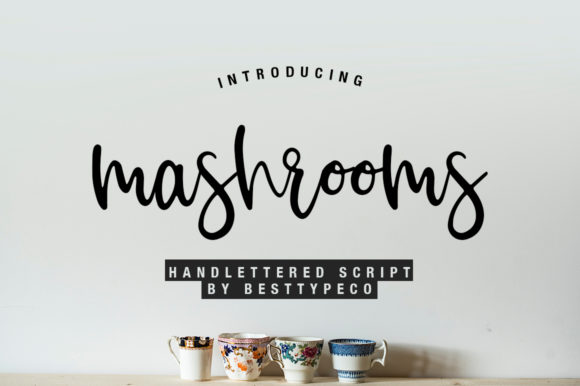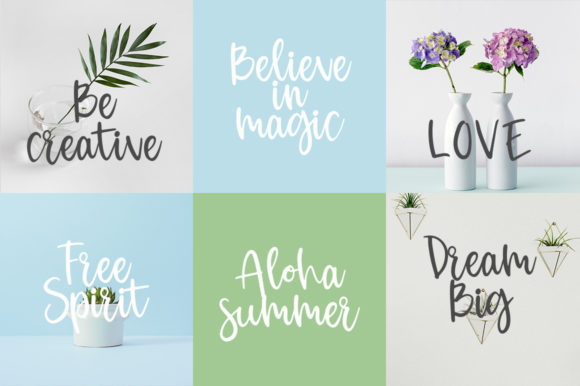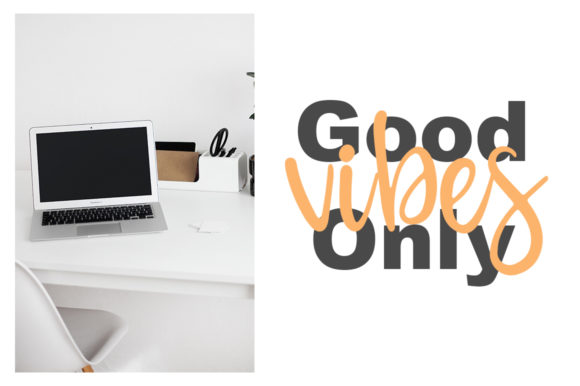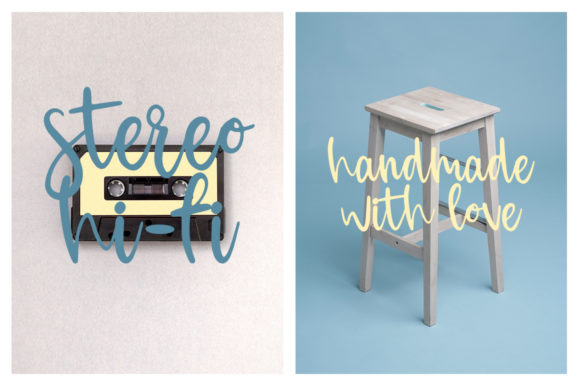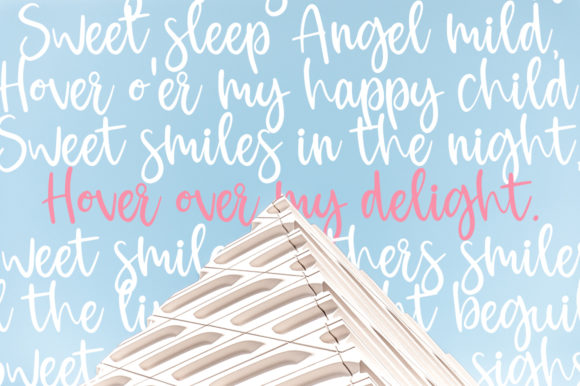
HomeScript FontsMashrooms Font Script Fonts Mashrooms Font FacebookXPinterestWhatsApp Mashrooms Font Poster 2 Mashrooms Font Poster 3 Mashrooms Font Poster 4 Mashrooms Font Poster 5 About Mashrooms Font Mashrooms is a lovely script typeface with charming style. It will add a romantic touch to any crafting project! DOWNLOAD ON CREATIVE FABRICAThis font is sold and delivered by Creative Fabrica. Font Canyon may earn a commission if you buy through this link. People also explored Aiwoke Font Homework Font Choco Letter Font Lemon Cheesecake Font Bump Font Montheylin Font Alexandra Script Font Tails Mermaid – a Crafted Script Lost City Font 385 0 TagsMashrooms Font Previous articleValetia FontNext articleStereotype Font LEAVE A REPLY Cancel reply Comment: Please enter your comment! Name:* Please enter your name here Email:* You have entered an incorrect email address! Please enter your email address here Website: Save my name, email, and website in this browser for the next time I comment. Personal Use Free Dimensional Look71 Personal Use Free Read more about this font Expaing Personal Use Free Read more about this font Girl Personal Use Free Read more about this font Alinda Personal Use Free Read more about this font BLOG 5 Fonts That Will Dominate Design Trends in 2026 5 Fonts for 2026 That Will Dominate Design Trends Typography plays a critical role in visual communication, and as we look ahead to 2026, it’s... Transform Your Website: Elevate Your Typography with 7 Best Web Font Generators Free Fonts Risk: Why Free Fonts Can Be Dangerous for Designers Using Fonts in Digital Marketing: Tips to Strengthen Your Brand Identity